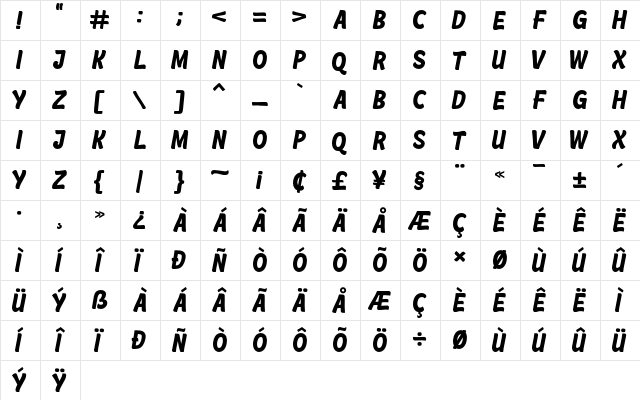
Retrochips Regular
| Designer | Almarkhatype 2019 - Abdul Malik Wisnu |
Design Context for Retrochips Typeface
Retrochips has the warm character of retro typography — evoking diners, record sleeves, and the golden age of print advertising.
Font Pairing: Combine Retrochips with a simple slab or neutral sans — period-accurate companions reinforce the vintage feel without competing for attention.
Pro Tip: Use Retrochips for headlines and pull quotes rather than body copy — its personality is best appreciated in short, focused bursts.